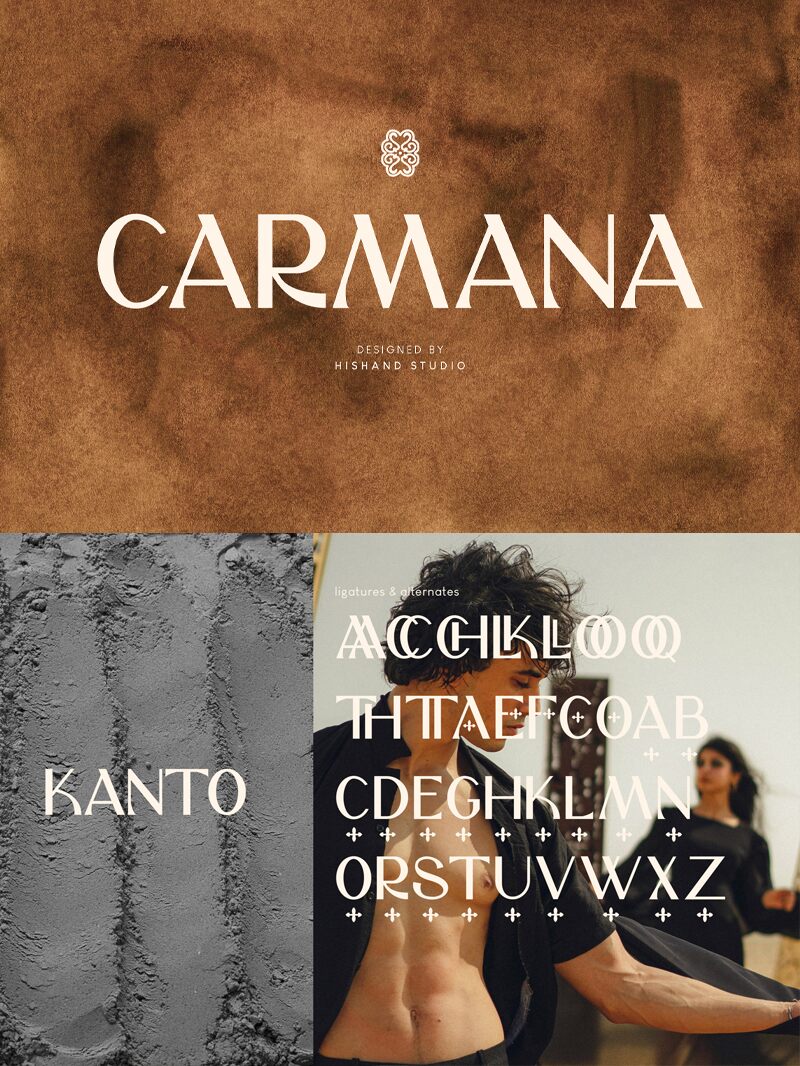
Carmana font by Hishand Studio is a modern sleek, geometric, and minimalistic blend of firm lines and understated curves. This free serif font displays an attractive balance between classic elegance and contemporary flair for fashion-forward text that captures the eyes.
The typeface is ideal for brand identities in fashion, clothing labels, tech branding designs, interior decor materials, cosmetics packaging, or lifestyle guides. Carmana works flawlessly if you want to design website interface headers/footers or app interface texts. It is also suitable for printed promotional posters for events such as art exhibitions or live music concerts.